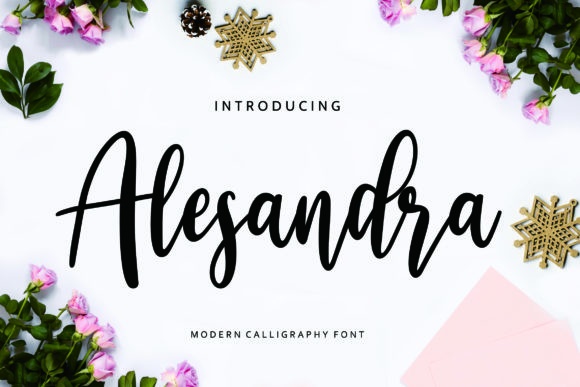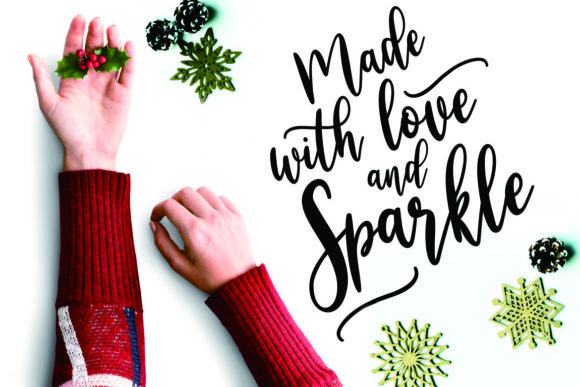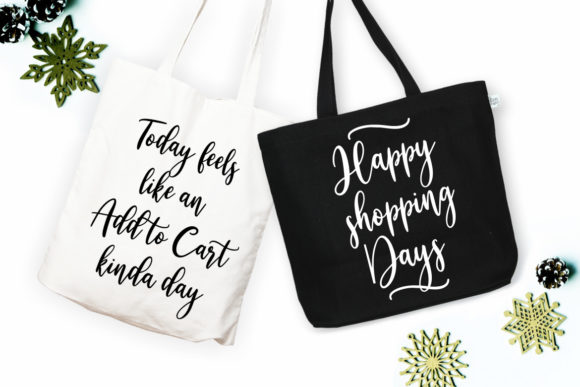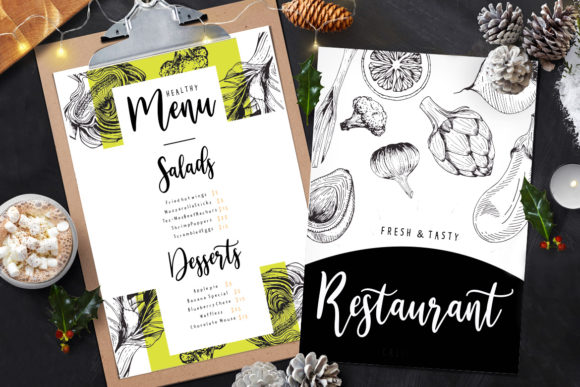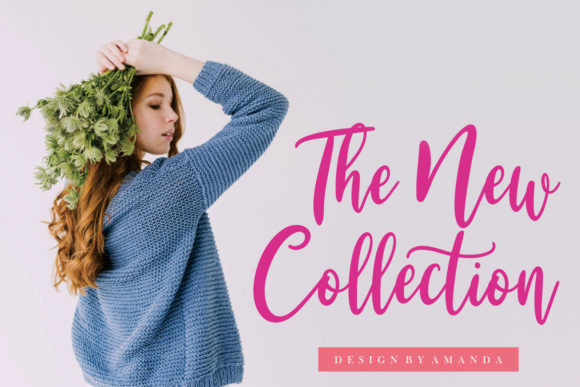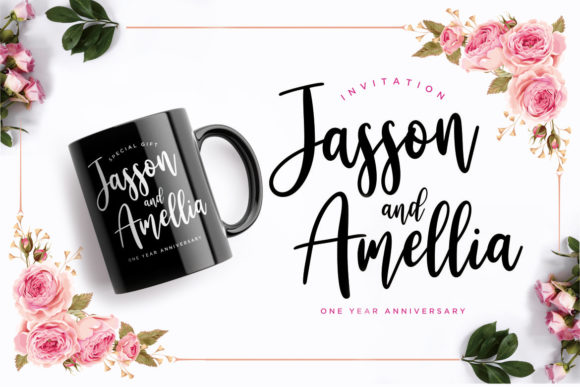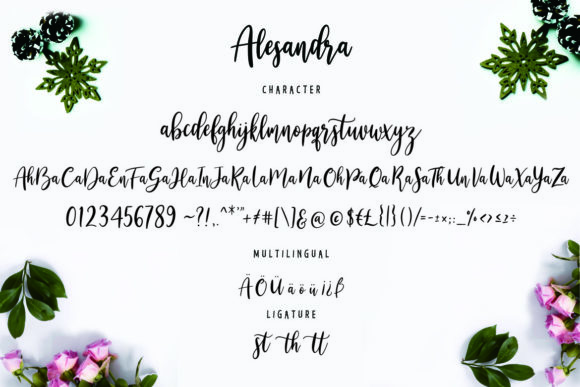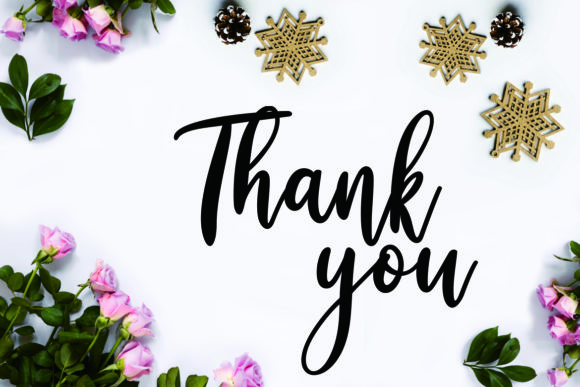
HomeScript FontsAlesandra Font Script Fonts Alesandra Font FacebookXPinterestWhatsApp Alesandra Font Poster 2 Alesandra Font Poster 3 Alesandra Font Poster 4 Alesandra Font Poster 5 Alesandra Font Poster 6 Alesandra Font Poster 7 Alesandra Font Poster 8 About Alesandra Font Alesandra is fresh, friendly and fun. This script will turn any design idea into a true piece of art! DOWNLOAD NOW People also explored Delvon Thin Font Contra Condemned Minimouse Font Baby Love Font Nikita Fanfare Melastory Script Font Hei Cute 317 0 TagsAlesandra Font Previous articleStadella FontNext articleGistesy Font LEAVE A REPLY Cancel reply Comment: Please enter your comment! Name:* Please enter your name here Email:* You have entered an incorrect email address! Please enter your email address here Website: Save my name, email, and website in this browser for the next time I comment. Personal Use Free BD Geminis Personal Use Free Read more about this font Amillina Monogram Personal Use Free Read more about this font Archipellago Personal Use Free Read more about this font Vincent Familiante Personal Use Free Read more about this font BLOG Best Fonts for YouTube Videos: Make Your Thumbnails Stand Out Best Fonts for YouTube Videos: Make Your Thumbnails Stand Out Choosing the right font can make a massive difference in how your YouTube videos perform.... Using Fonts in Digital Marketing: Tips to Strengthen Your Brand Identity Free vs Paid Fonts: Why Investing in Premium Fonts Is Worth It Modern Sans-Serif Fonts That Brands Love in 2025